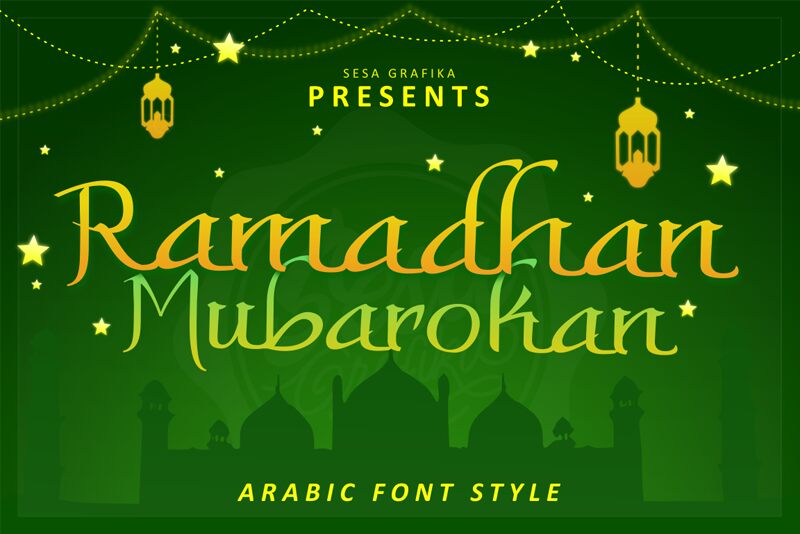
Ramadhan Mubarokan
Ramadhan Mubarokan - a captivating Arabic font that exudes a sense of elegance and tradition. Crafted by the skilled designers at Sesa Grafika, this font effortlessly blends calligraphic flourishes with a harmonious balance, creating a visually striking and evocative aesthetic.
The sweeping strokes and delicate curves evoke the spirit of Ramadhan, making this font an ideal choice for a variety of design applications, from religious and cultural publications to high-end packaging and branding. Its versatility allows it to seamlessly transition from serene, contemplative settings to vibrant, celebratory designs.
Whether used as a focal point or a complementary element, Ramadhan Mubarokan promises to elevate the visual experience and captivate audiences with its profound cultural resonance.